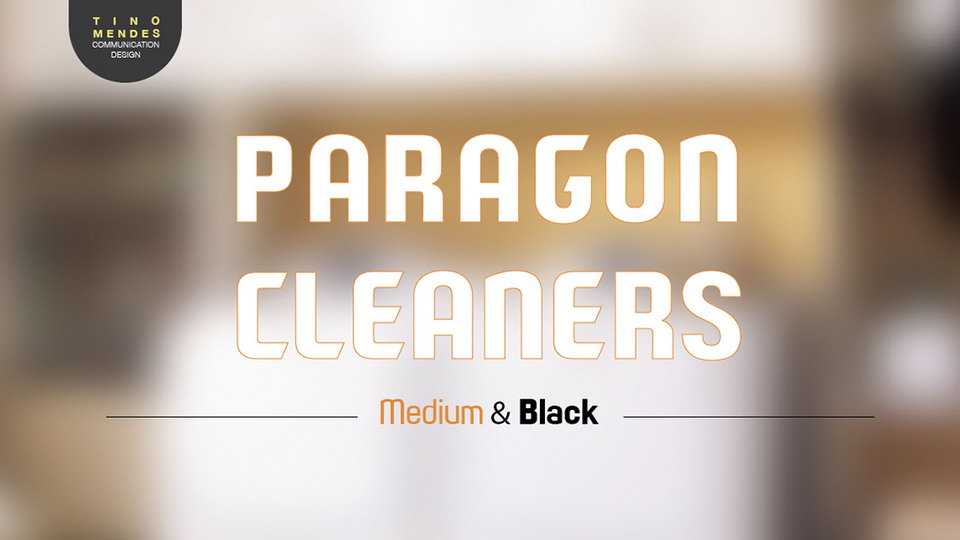
Download Paragon font family, a creative sans serif typeface with smooth curves and sharp edges. Bold version works great for titles, Medium is suitable for texts. These fonts also can be used in branding, merchandise, social media and more.
Designer: Tino Mendes